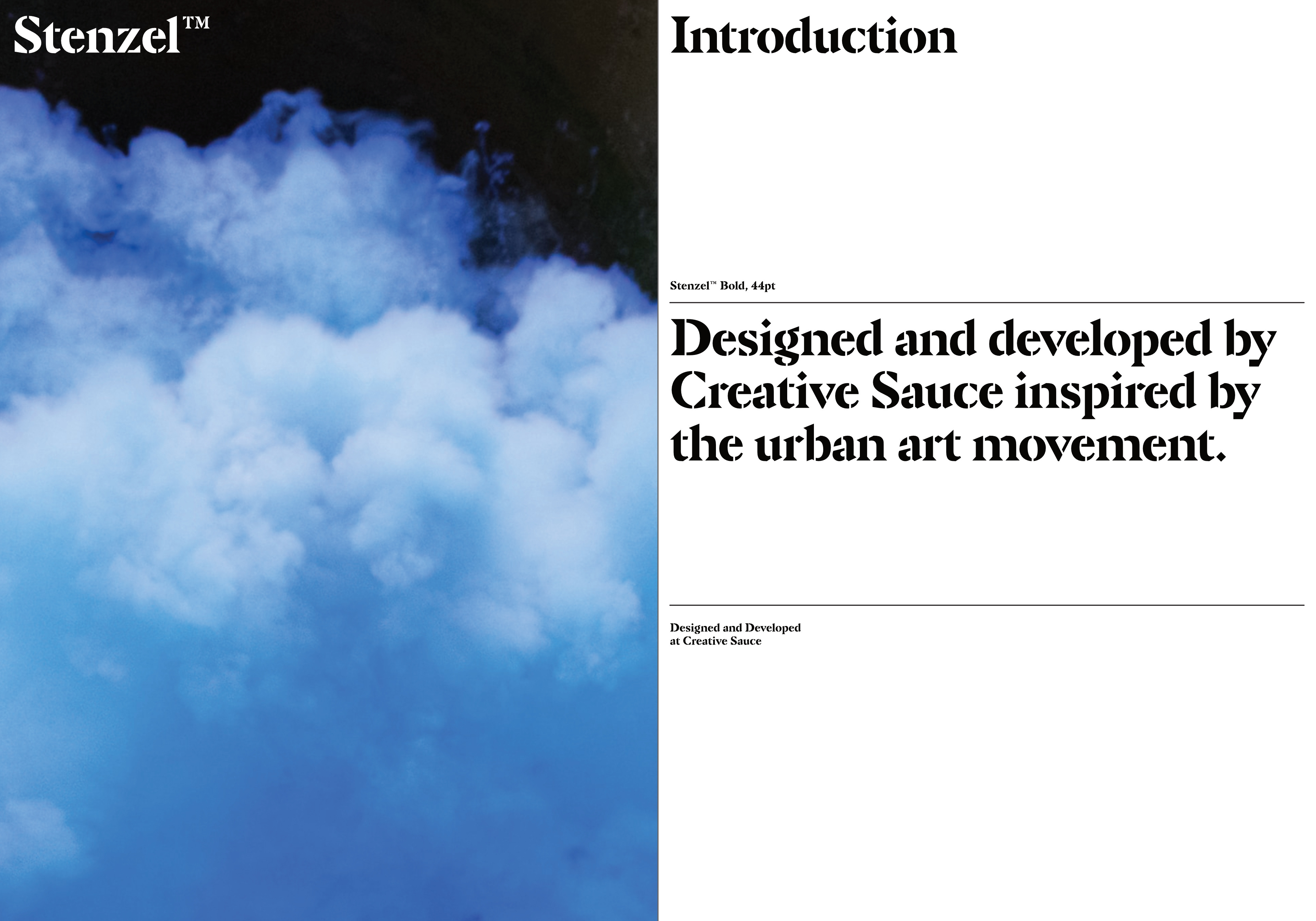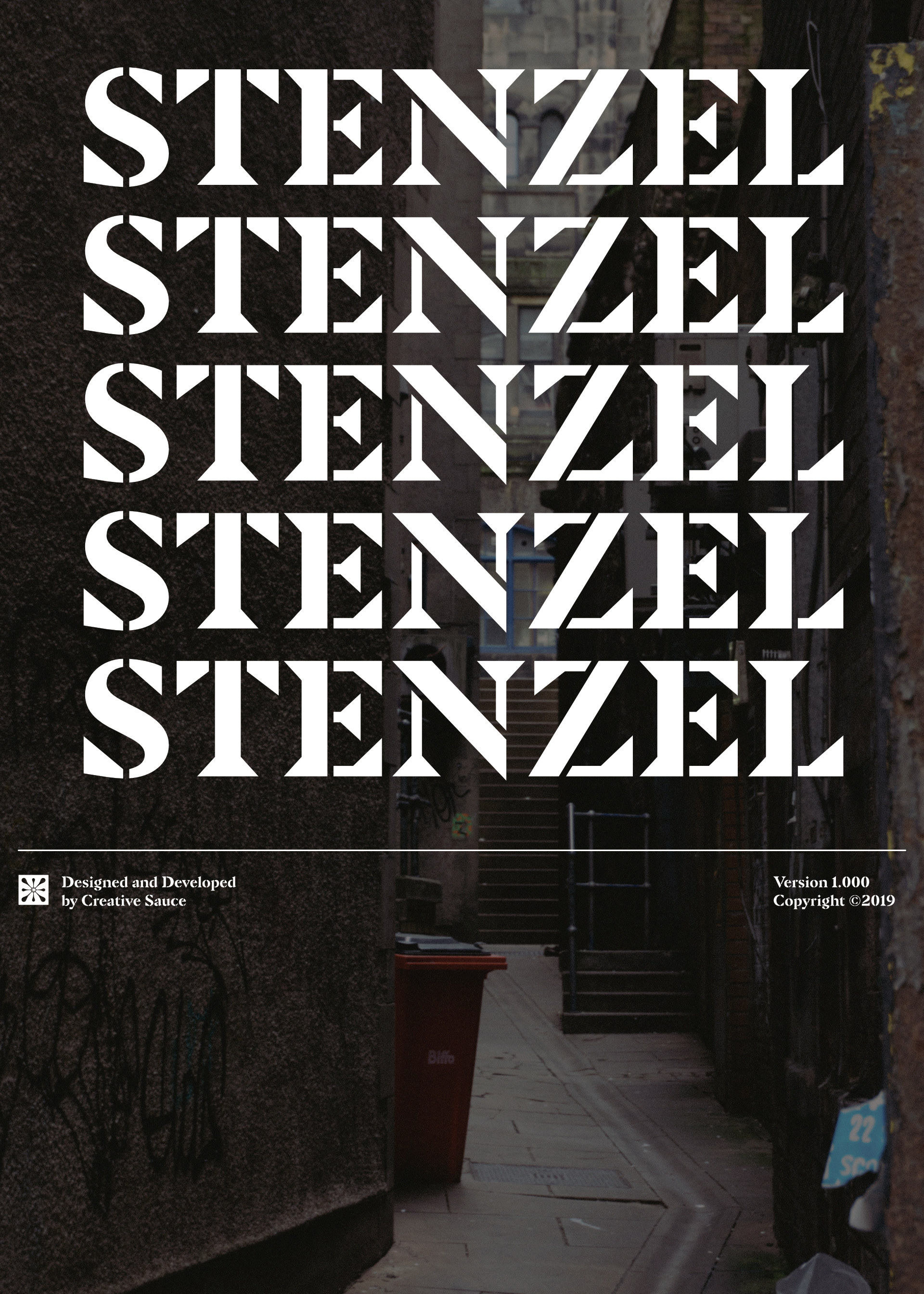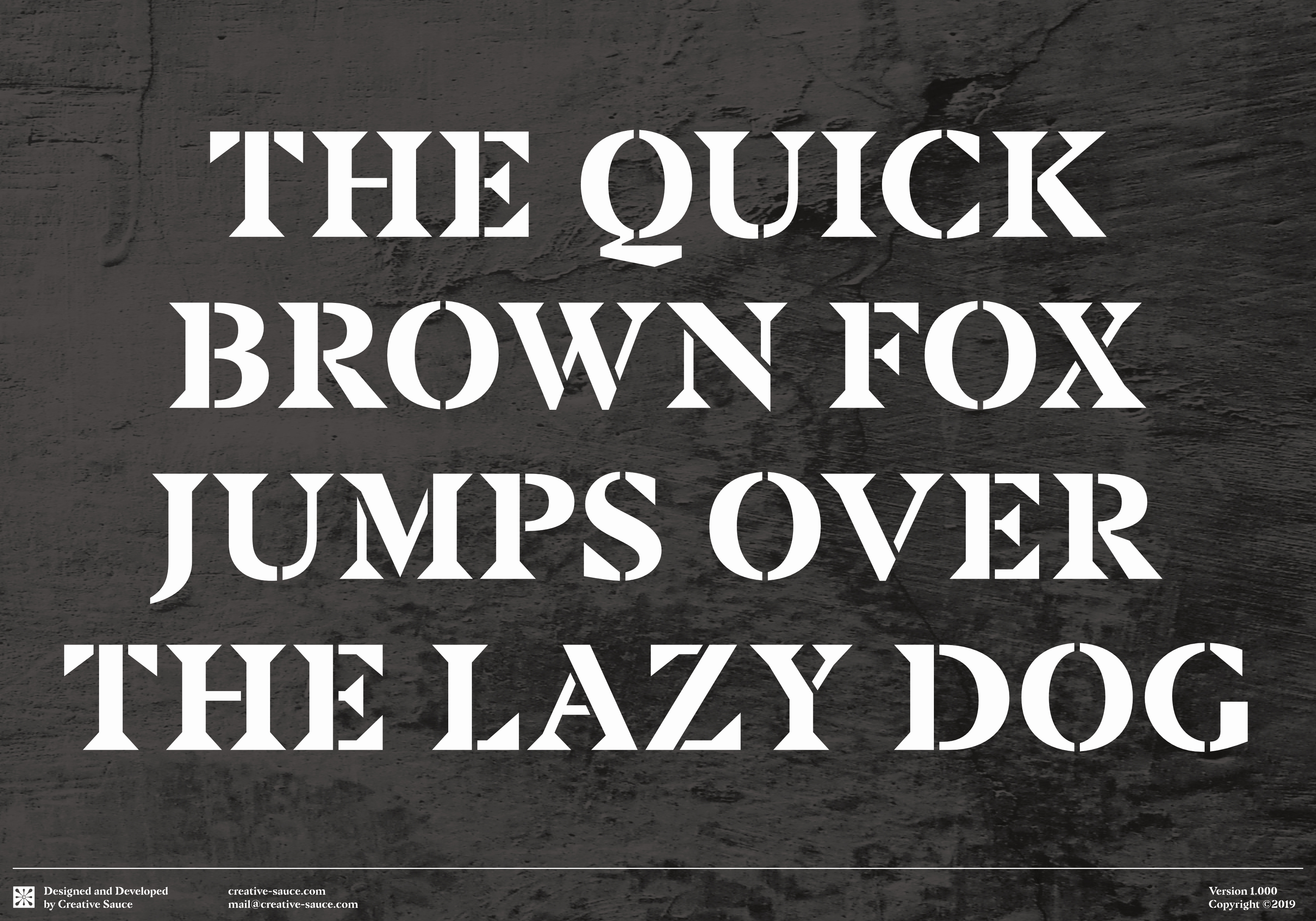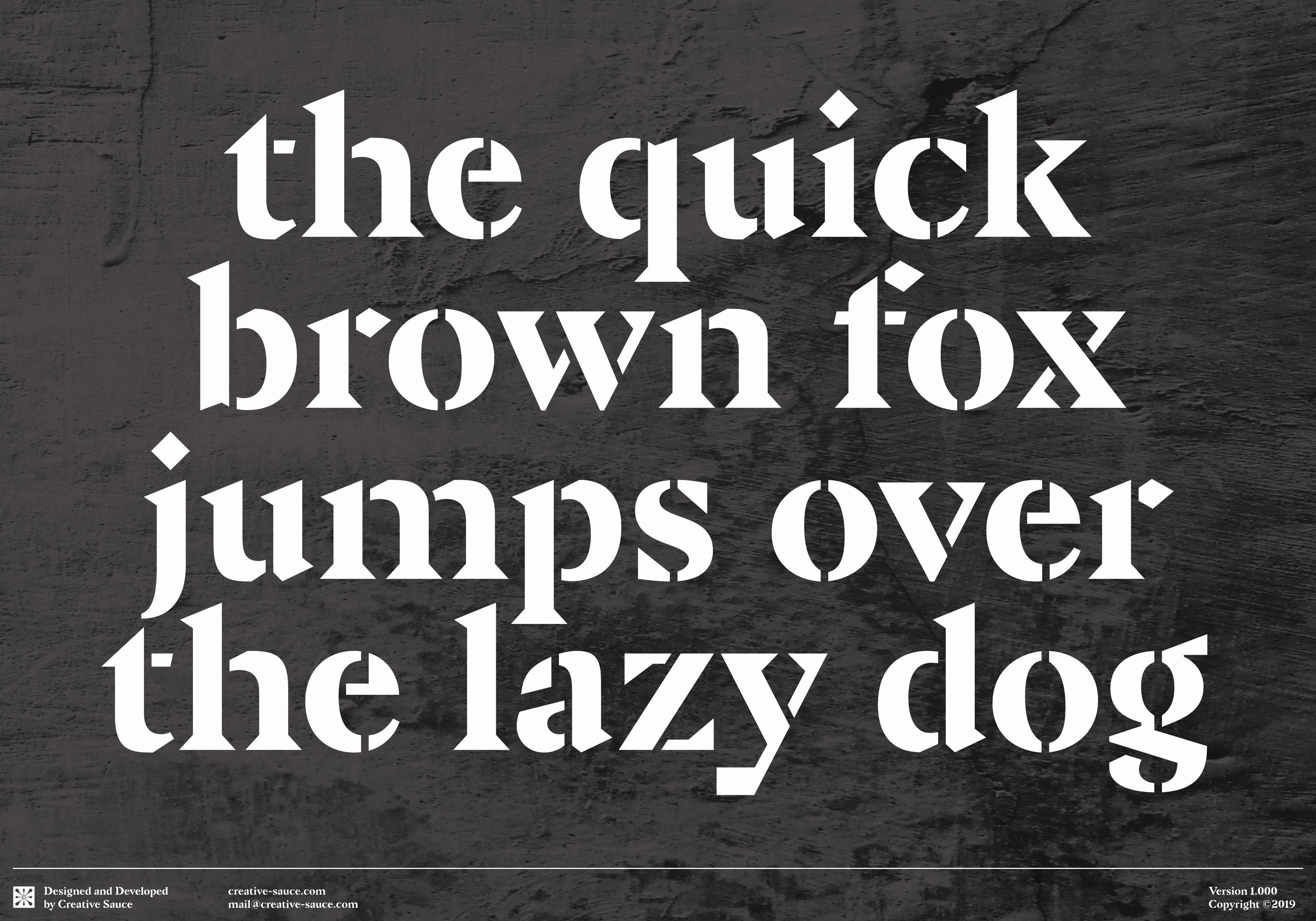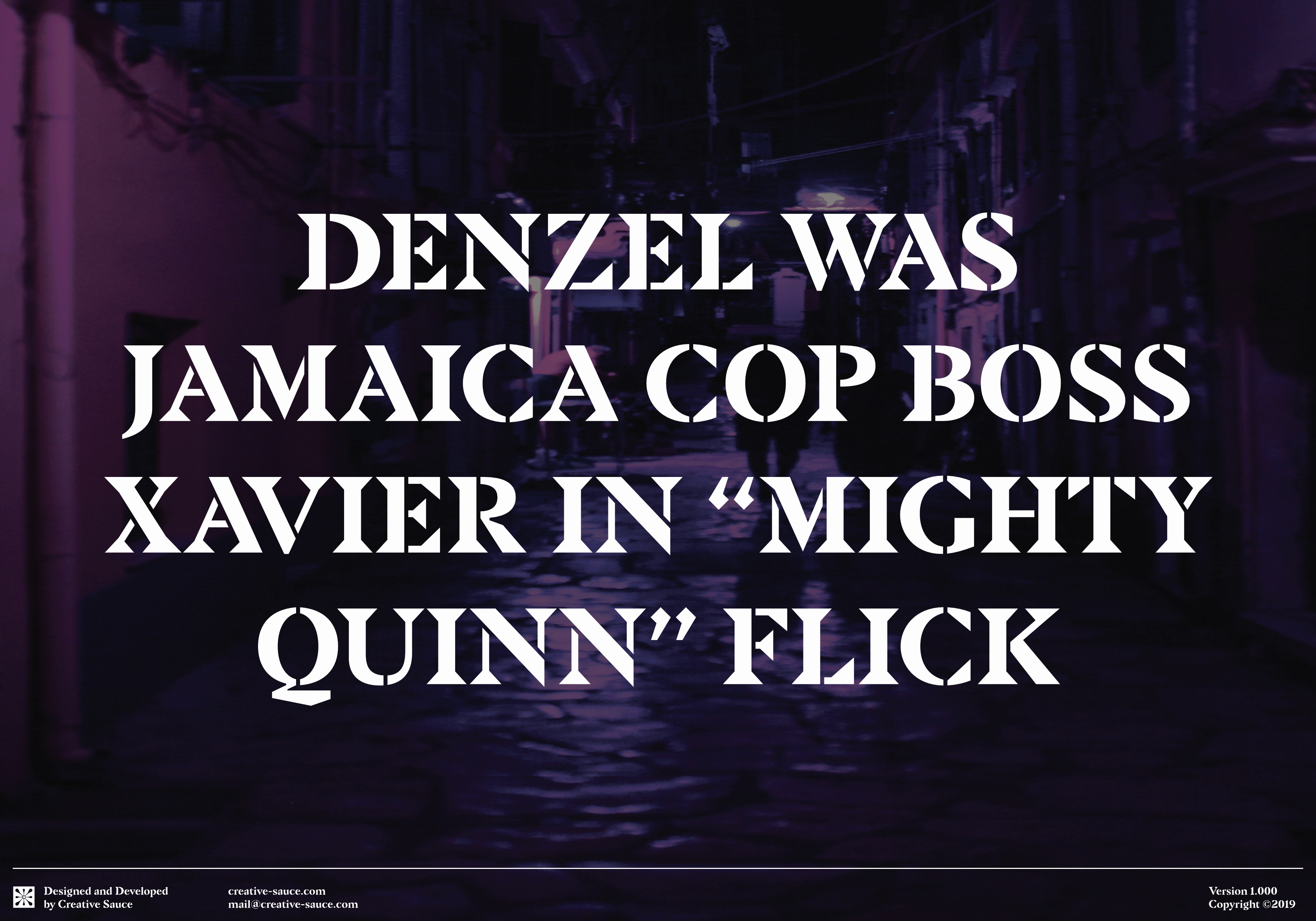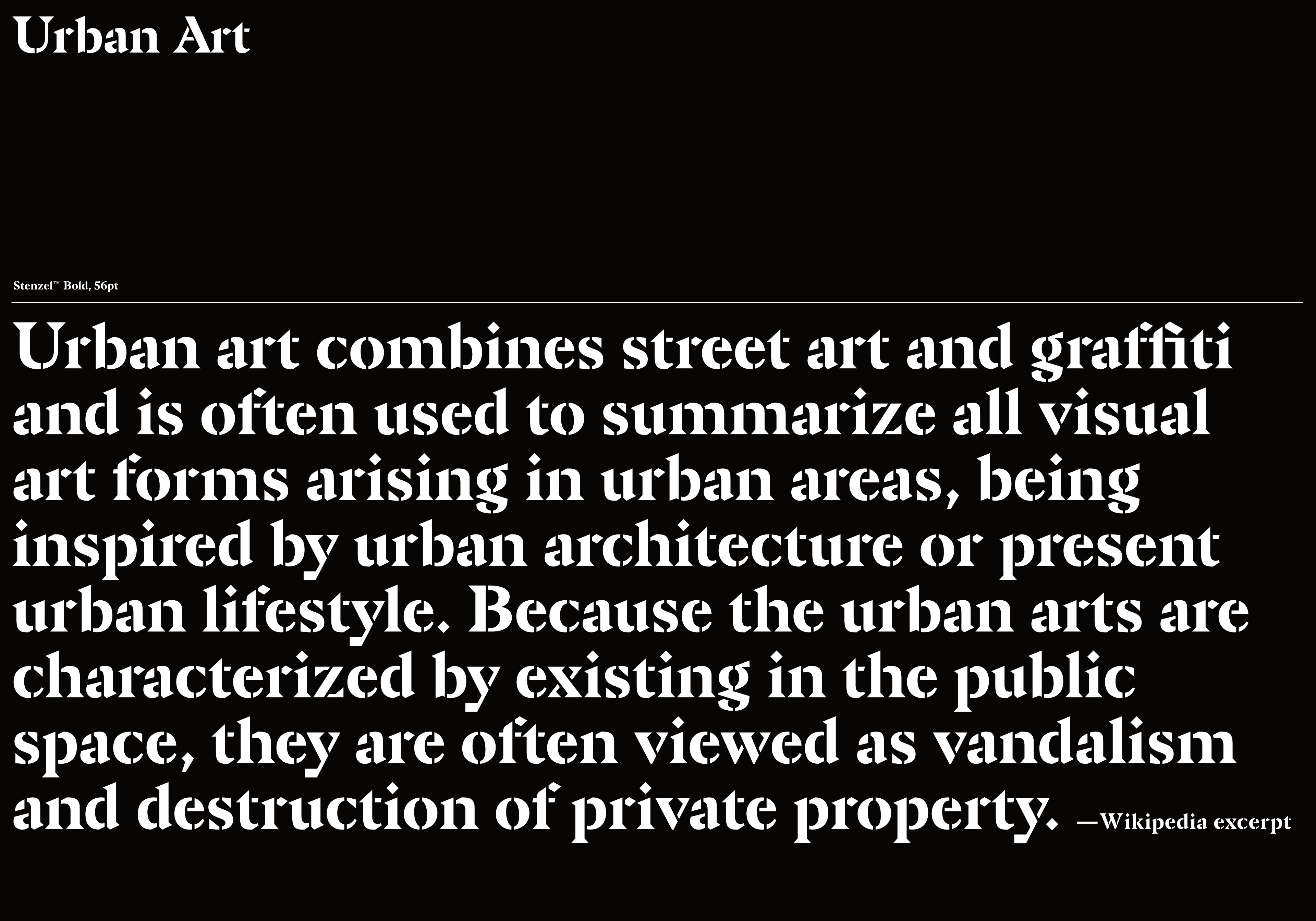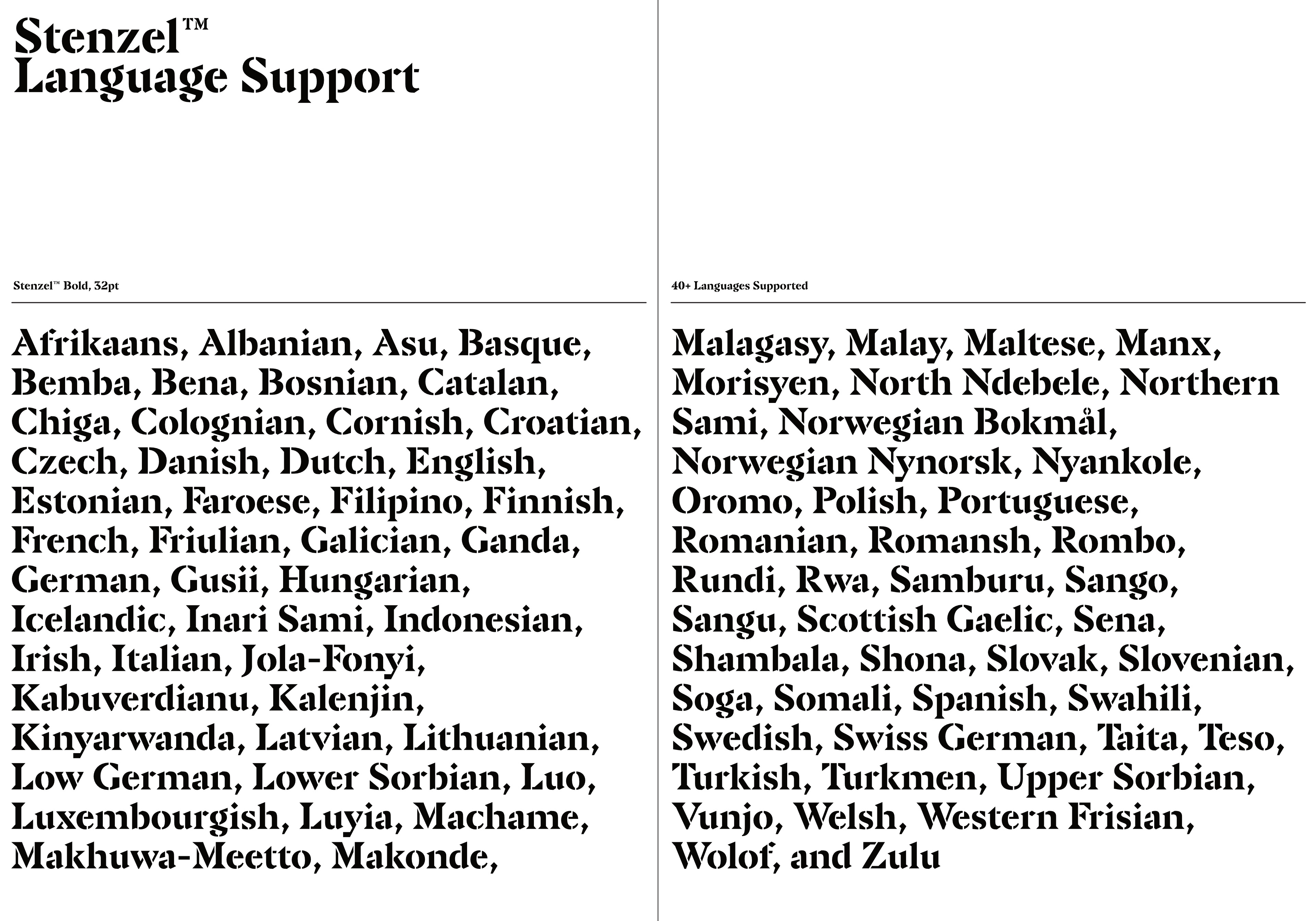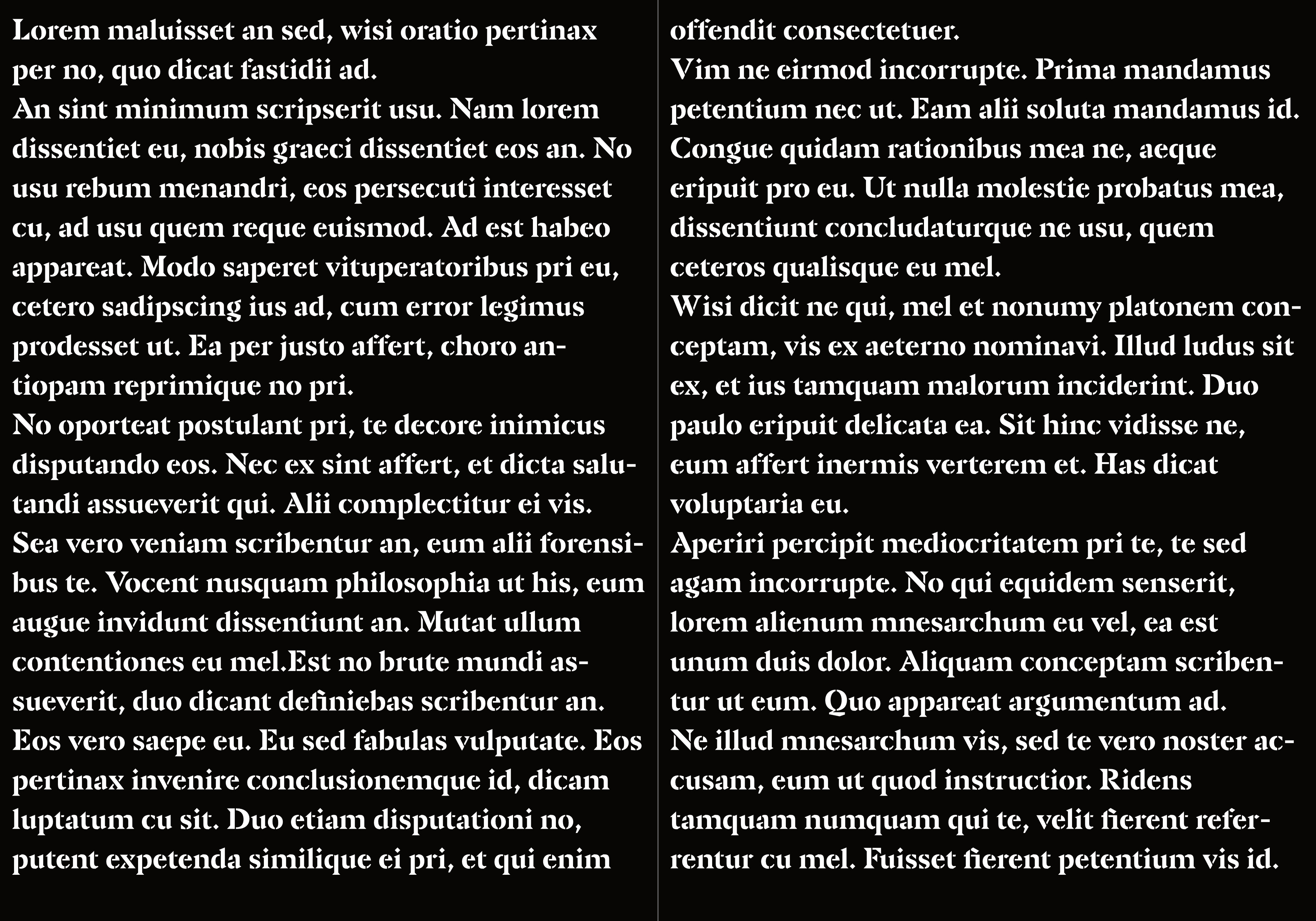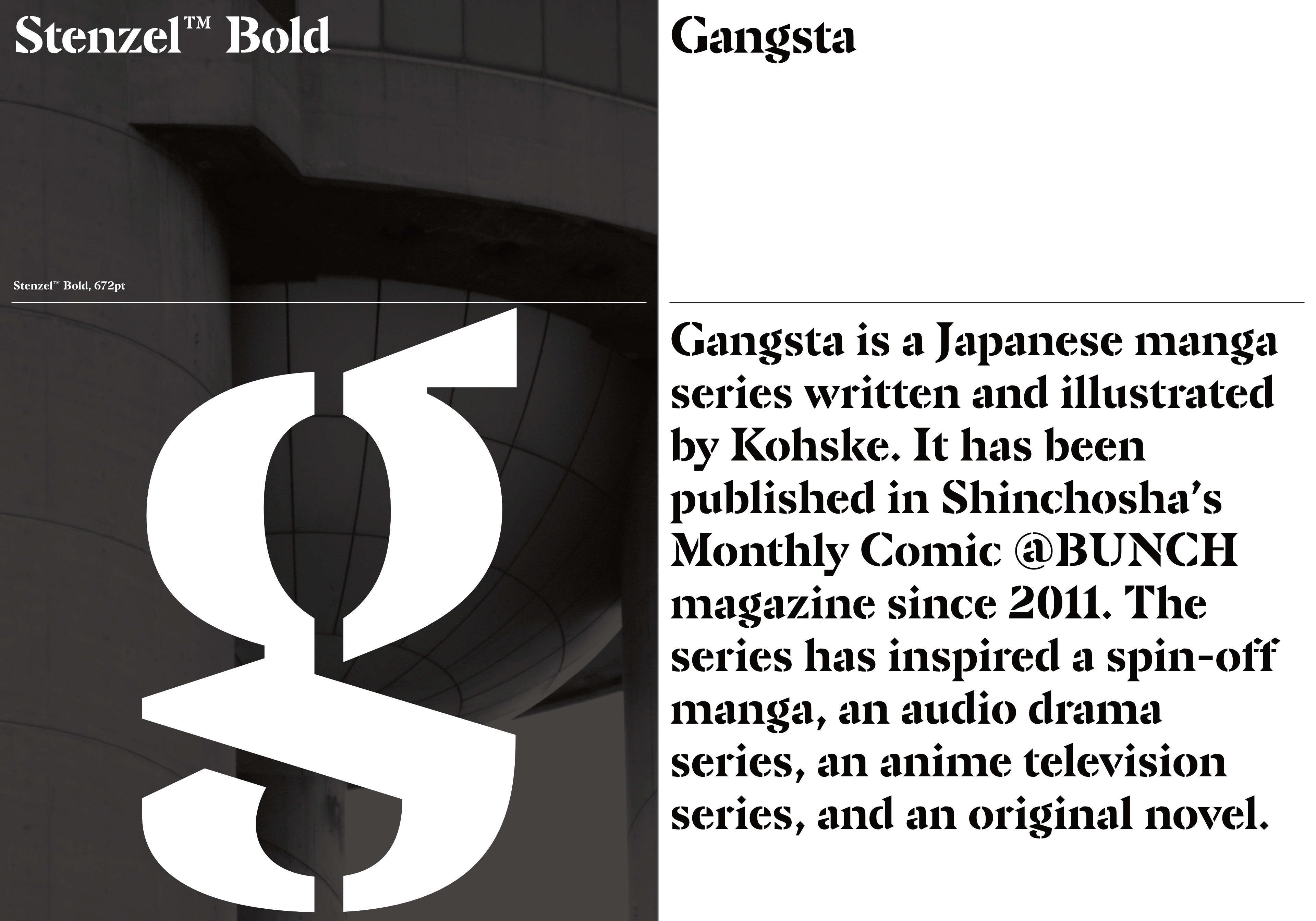
Stenzel™ is Designed and developed by Creative Sauce inspired by the urban art movement. The stylish and rigid geometry of Stenzel™ works very well when paired with classical serifs or the early sans serif grotesque typefaces.
Design + Development: Alfredo Marco Pradil
Company: Creative Sauce
Class: Serif, Display, Geometric